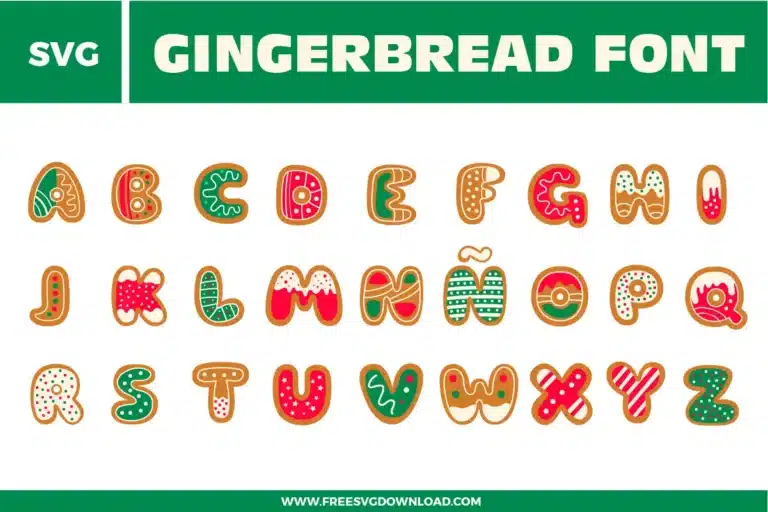
Gingerbread Font Free SVG File
A colorful Gingerbread Font free svg files collection featuring a complete alphabet of cookie-style letters. Each letter is designed to look like a decorated gingerbread cookie with a brown crust and vibrant icing in red, green, and white. The designs include festive details like white frosting squiggles, colorful polka dot sprinkles, and candy cane stripes, perfect for high-quality Christmas digital crafting.
• Gingerbread Font SVG: Full uppercase alphabet set designed as decorated gingerbread cookie letters, featuring icing-style outlines and colorful holiday patterns like dots, stripes, swirls, and frosting fills on each character.